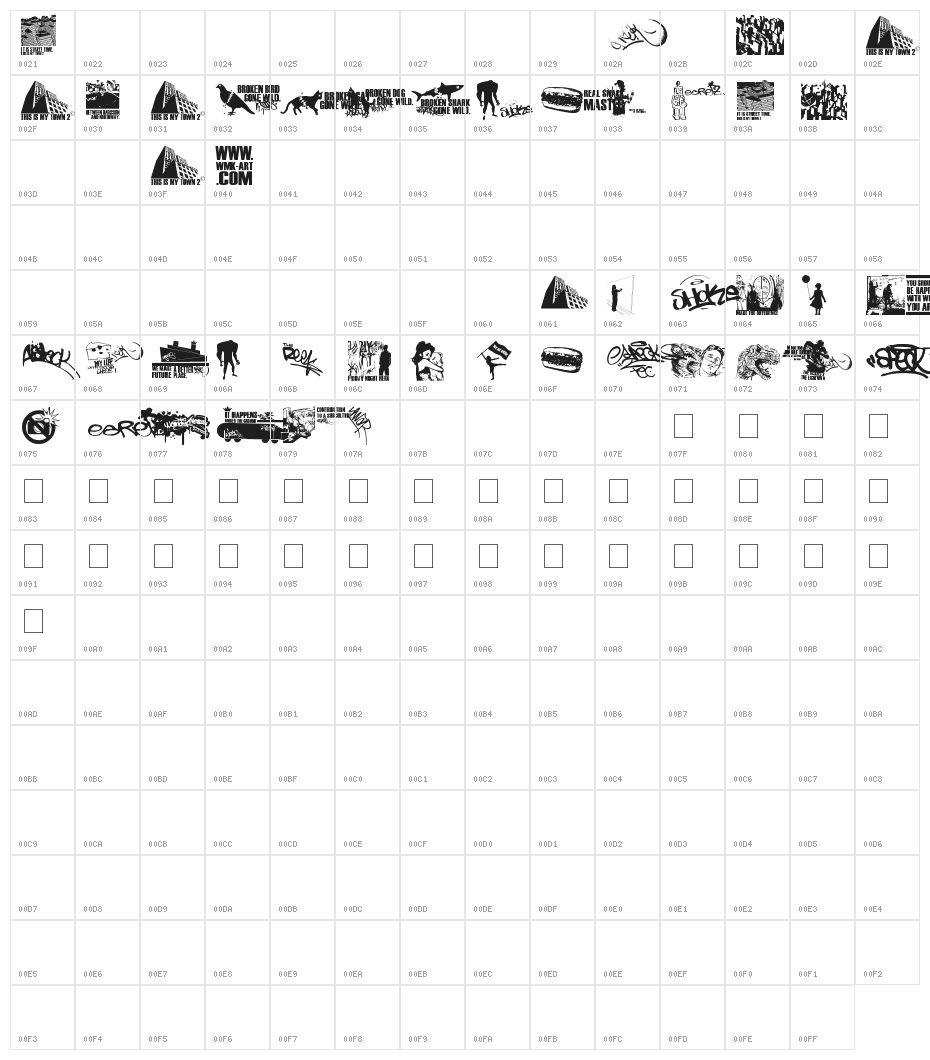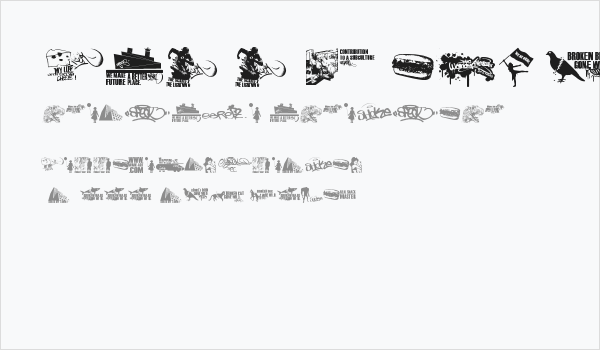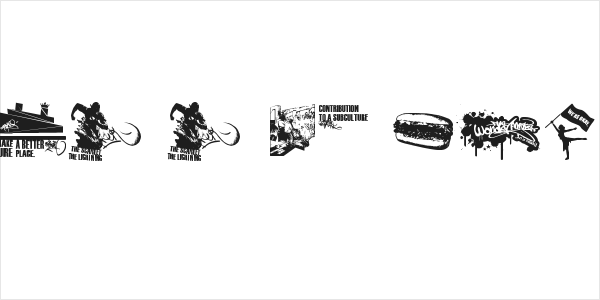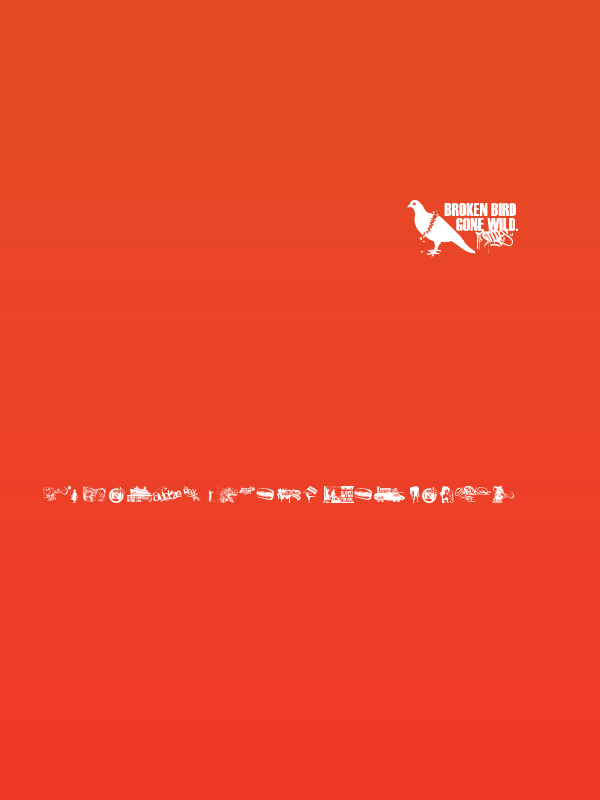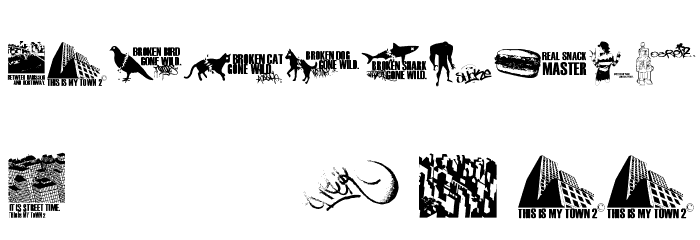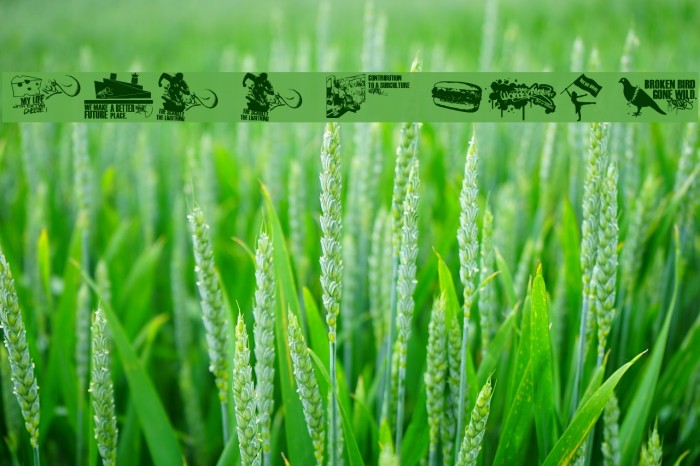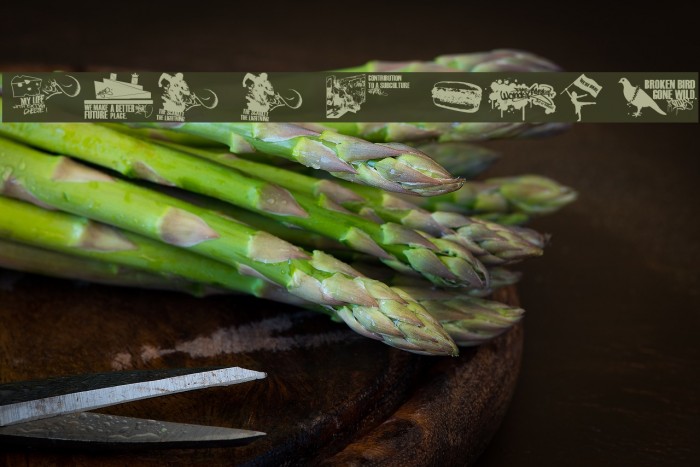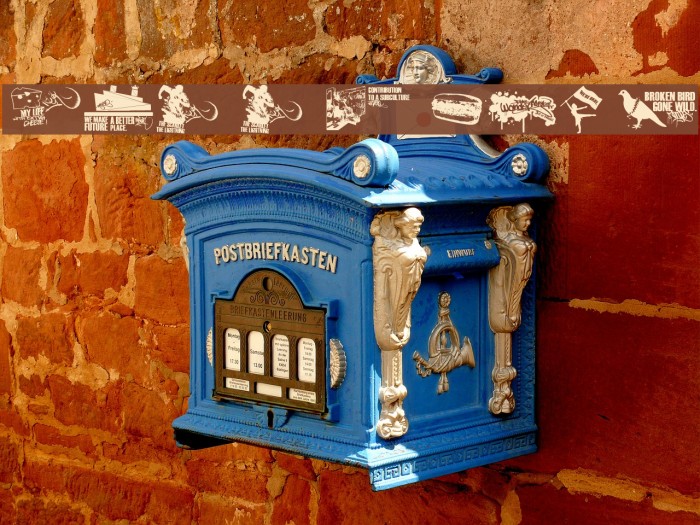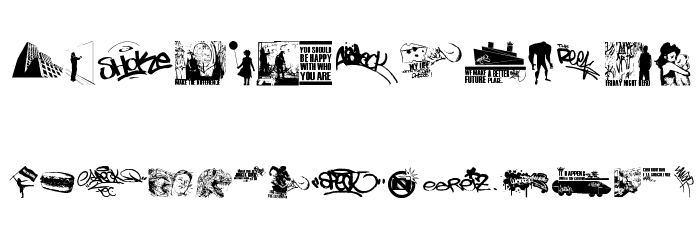
This Is My Town 2 Font
This Is My Town 2 Description
This font is a highly decorative and artistic collection of characters that incorporates various urban and graffiti-inspired elements. Each character is uniquely designed, often integrating images, silhouettes, and abstract shapes, making it more of an art piece than a traditional font. The characters are bold and visually striking, with a mix of sharp and curved lines that create a dynamic and energetic feel. The font includes a variety of themes, from urban landscapes to abstract figures, providing a rich visual experience. The overall style is eclectic and expressive, suitable for projects that aim to capture attention and convey a sense of modern urban culture.
| Categories | Graffiti |
| Overall Style | Modern, Urban, Artistic |
| Use Case | Logos, Posters, Album Covers |
| Proposed Projects | Ideal for street art projects, urban-themed posters, album covers, and any creative work that seeks to embody a modern, edgy aesthetic. |